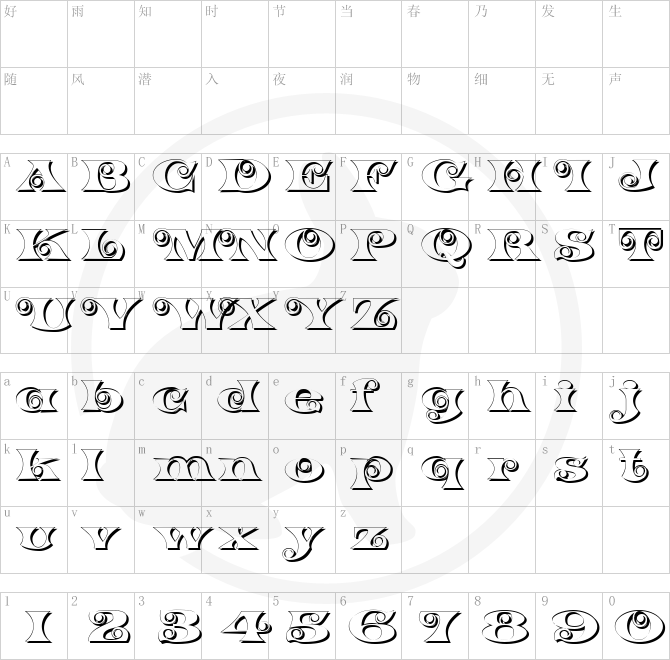
- Font Name:K22 Spiral Swash Shadow
K22-Spiral-Swash-Shadow.ttf is a very beautiful artistic font, K22-Spiral-Swash-Shadow.ttf is widely used in the design and printing of various books and pictures,K22-Spiral-Swash-Shadow.ttf has a strong visual impact,K22-Spiral-Swash-Shadow.ttf is a commonly used font in newspapers, magazines and books, and is used in posters, e-commerce Poster design, store design, logo design, font design and other fields.K22-Spiral-Swash-Shadow.